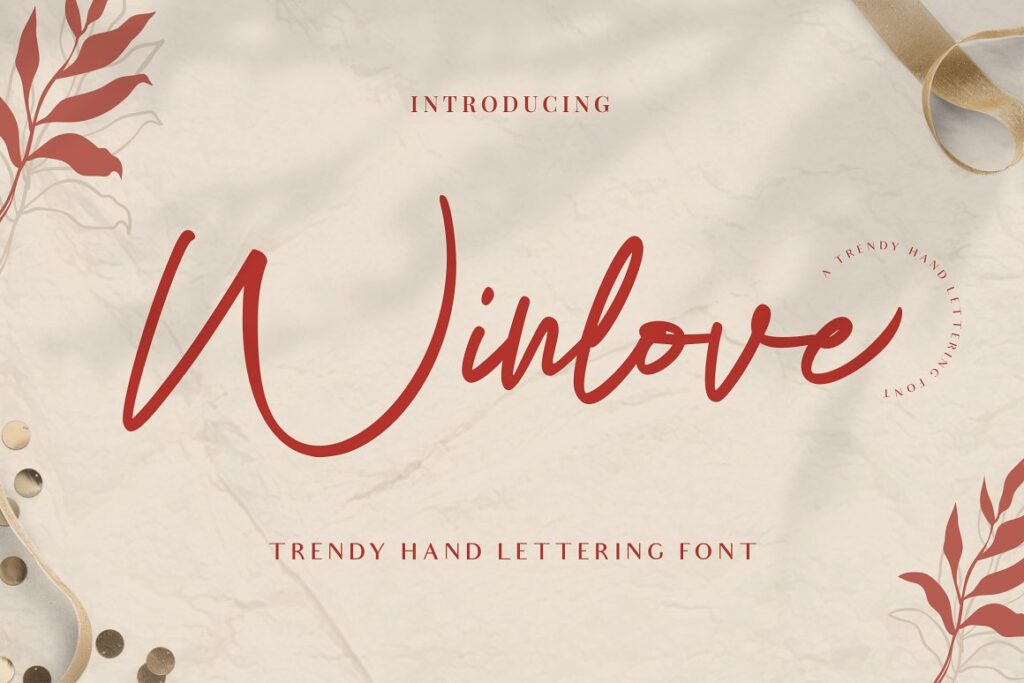
Winlove – an organic handwritten font that is suitable for branding, signature, wedding invitation, promotion, product packaging, and other needs. This font is modern, simple, but still authentic.
Winlove Free Font